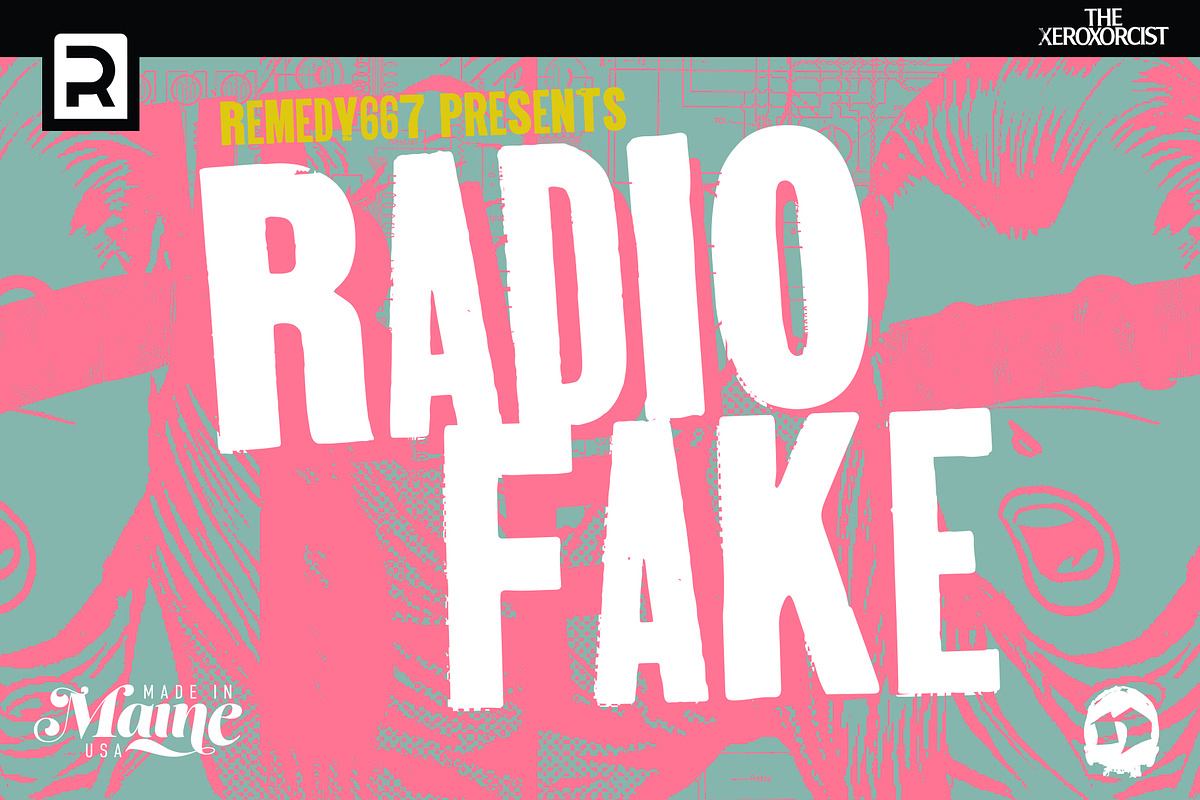
Loud, rebellious, and full of retro grit, Radio Fake Font Free Download is a bold display typeface inspired by underground punk zines, vintage radio ads, and 80s rock aesthetics. Perfect for posters, album art, streetwear branding, event flyers, and editorial layouts, this font brings serious attitude and a DIY edge to any creative project.
With its rough texture, bold strokes, and slightly distorted letterforms, Radio Fake captures the essence of raw energy and counterculture style. It's designed to stand out, making it ideal for attention-grabbing headlines and expressive graphics.